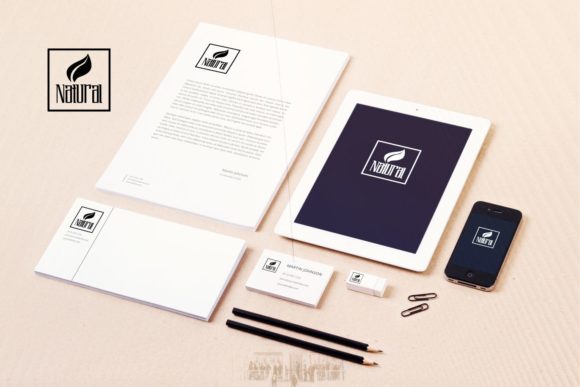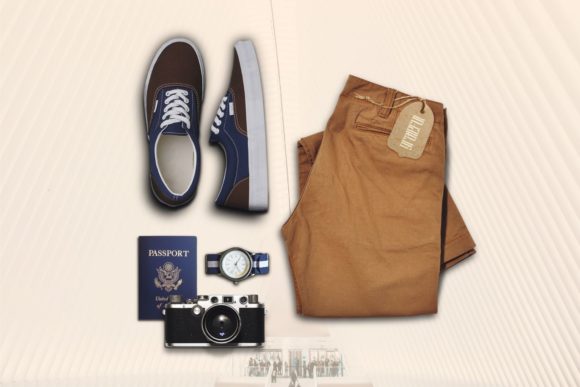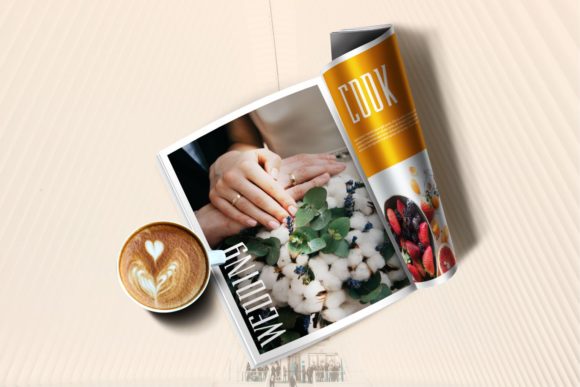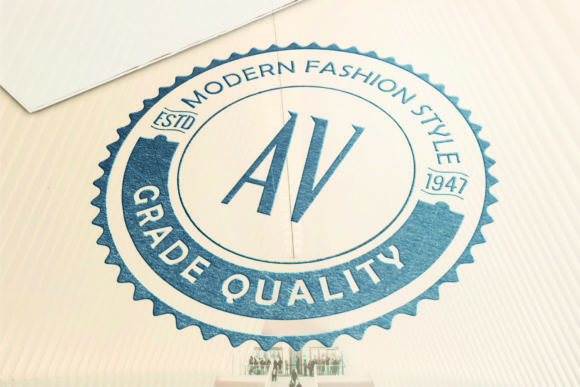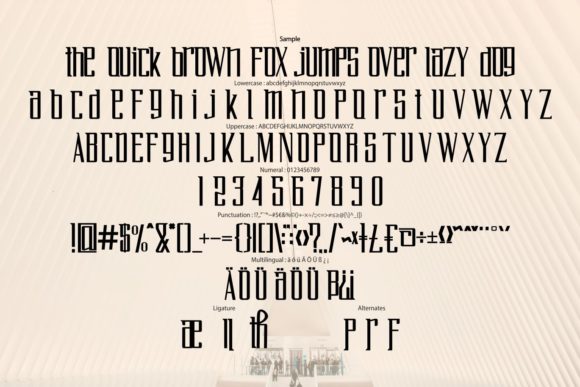
Introducing Fly Over Font: A Simple yet Elegant Serif Choice
When it comes to selecting the perfect font for a design project, the options can be overwhelming. However, if you’re looking for a typeface that exudes simplicity, elegance, and versatility, look no further than Fly Over Font. This beautiful serif font has been making waves in the design community, and for good reason. With its clean feel, neat arrangement of letters, and undeniable charm, Fly Over Font is an excellent choice for both formal and non-formal designs.
What Makes Fly Over Font Stand Out?
Fly Over Font is characterized by its straightforward and uncomplicated design. The serif elements add a touch of sophistication, while the overall aesthetic remains refreshingly clean and easy to read. This balance of elegance and simplicity makes it an ideal choice for a wide range of applications, from editorial design to digital media, and even crafting and DIY projects.
Key Features of Fly Over Font
- Clean and Simple Design: The font’s minimalist approach ensures that your text remains clear and legible, even at smaller sizes.
- Serif Elegance: The subtle serif details add a layer of sophistication, making Fly Over Font suitable for formal projects such as invitations, certificates, and business branding.
- Versatility: Whether you’re working on a formal proposal or a casual blog post, Fly Over Font adapts seamlessly to various design contexts.
- Beautiful Letter Arrangement: The font’s letters are thoughtfully arranged to create a harmonious and aesthetically pleasing text flow.
Use Cases for Fly Over Font
The versatility of Fly Over Font makes it an excellent choice for a variety of projects. Here are some use cases where this font truly shines:
- Editorial Design: Use Fly Over Font for articles, blog posts, and editorials where readability and elegance are paramount.
- Branding and Identity: Create a lasting impression with Fly Over Font for your business’s logo, signage, or marketing materials.
- Crafting and DIY Projects: Add a personal touch to your crafting projects, such as handmade cards, scrapbooking, or woodworking.
- Digital Media: Employ Fly Over Font in your digital projects, including website design, social media graphics, and presentations.
Tips for Using Fly Over Font Effectively
To make the most of Fly Over Font, consider the following tips:
- Pair with Complementary Fonts: Combine Fly Over Font with sans-serif fonts for a striking contrast or with other serif fonts for a harmonious blend.
- Experiment with Sizes and Weights: Play with different font sizes and weights to create visual hierarchy and add emphasis to key elements.
- Use Color Wisely: Select colors that complement the clean and simple design of Fly Over Font, ensuring your text remains legible.
Fly Over Font is a beautiful, simple, and casual serif font that brings a clean and elegant feel to any design project. Its versatility, readability, and aesthetic appeal make it an excellent choice for designers, crafters, and anyone looking to add a touch of sophistication to their work. Whether you’re working on a formal or non-formal project, Fly Over Font is sure to make a lasting impression.